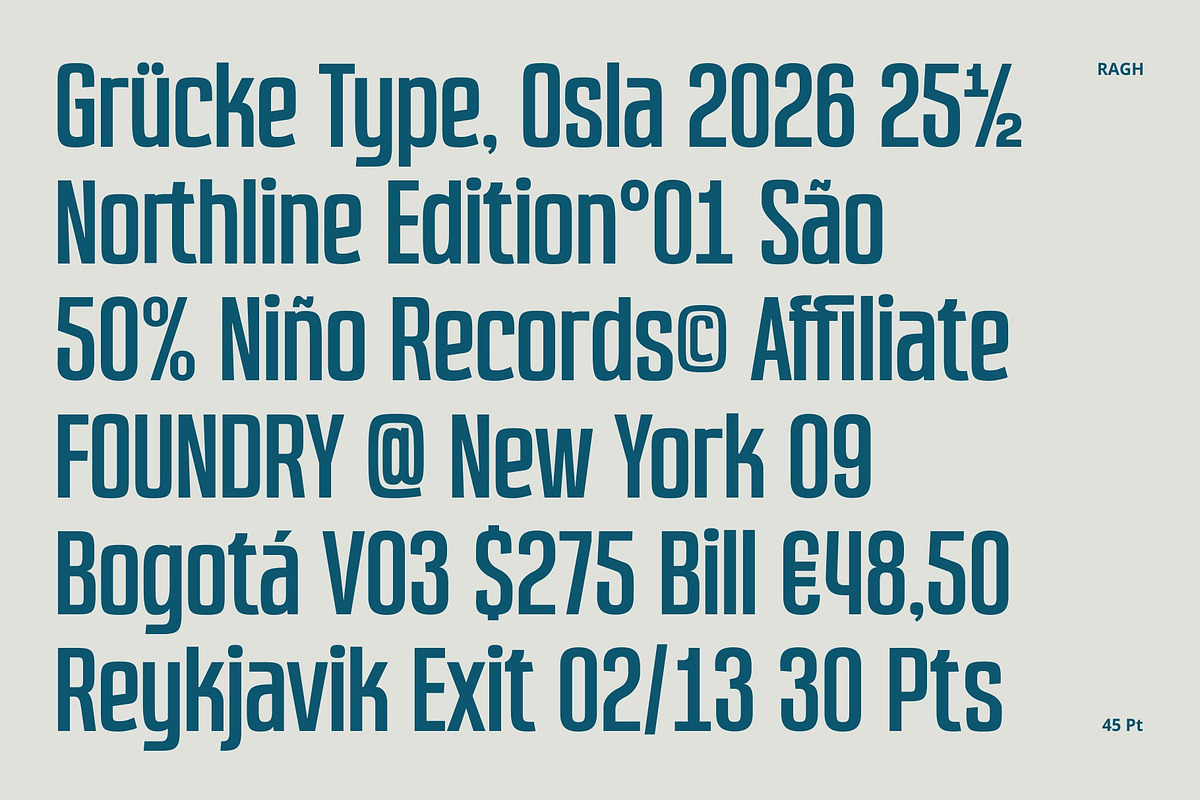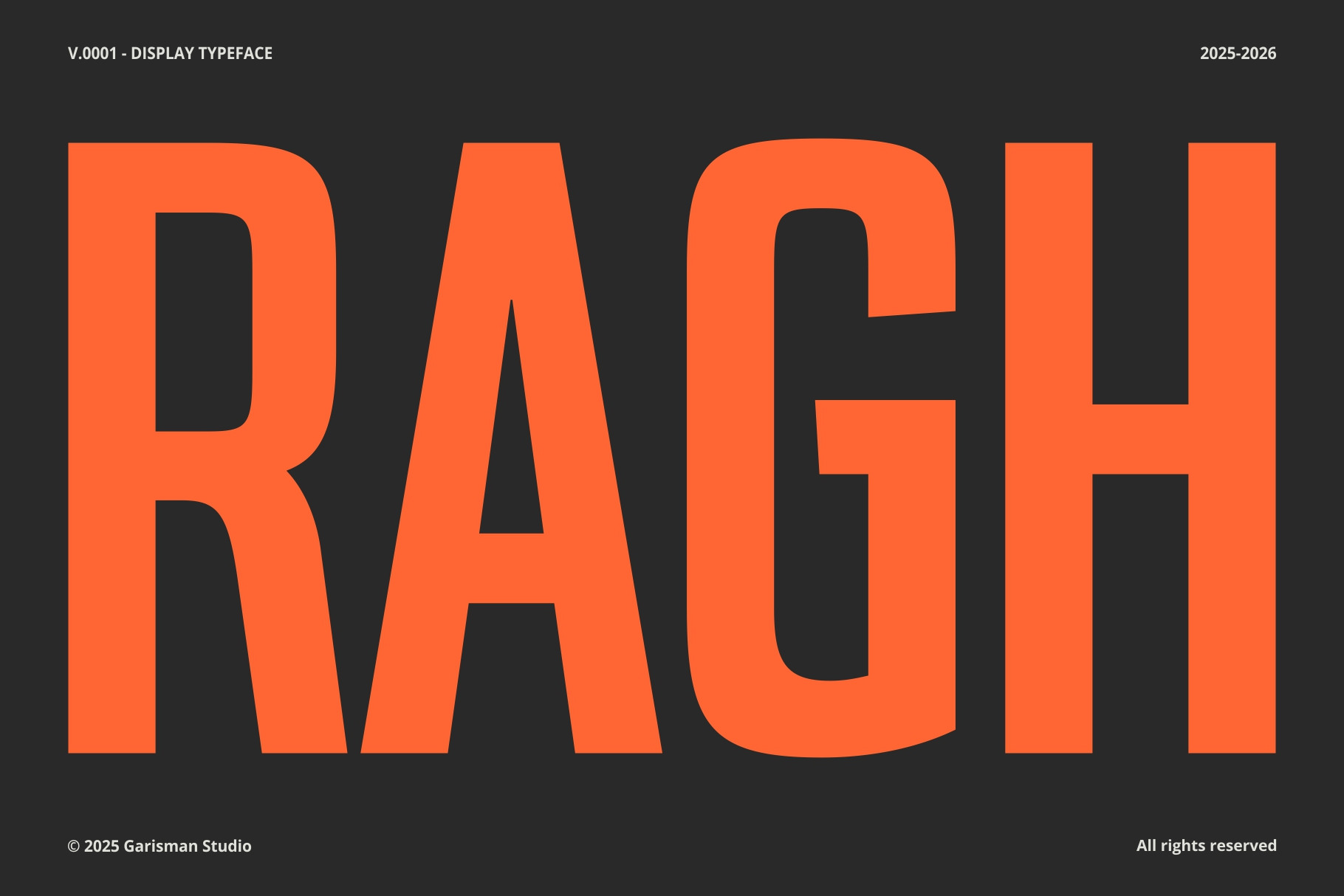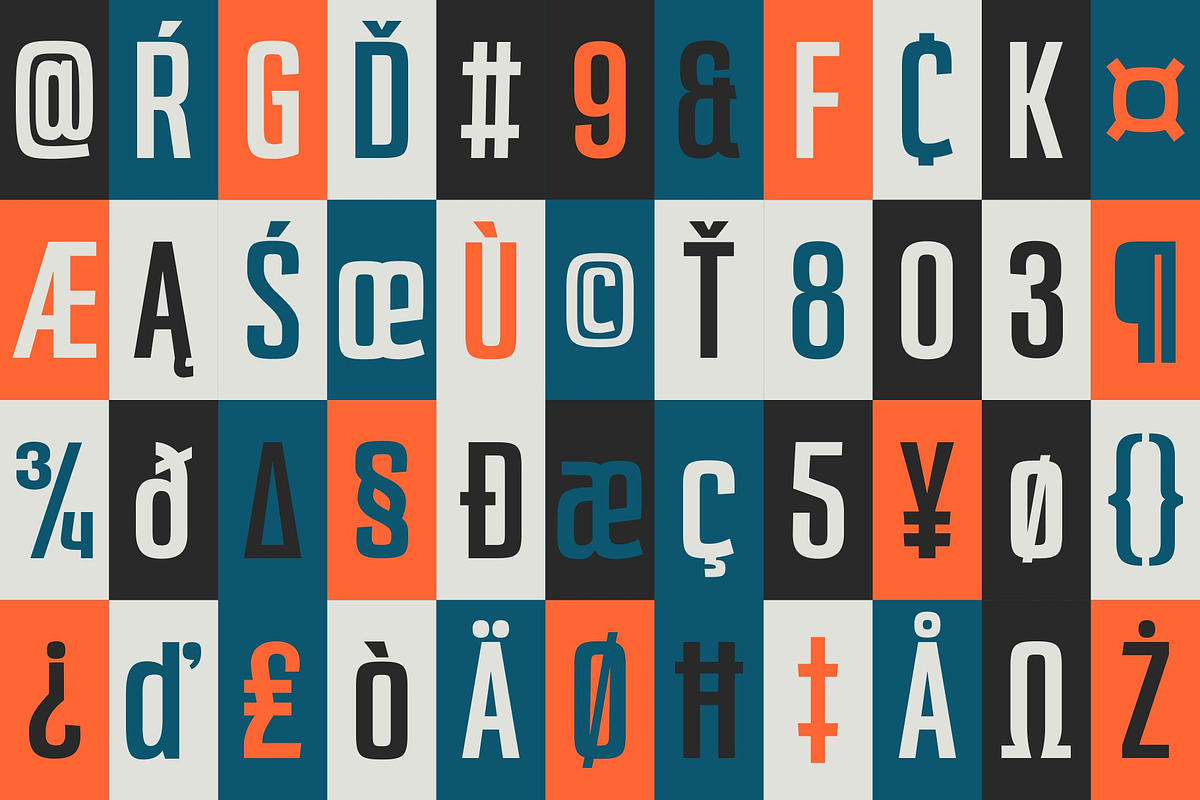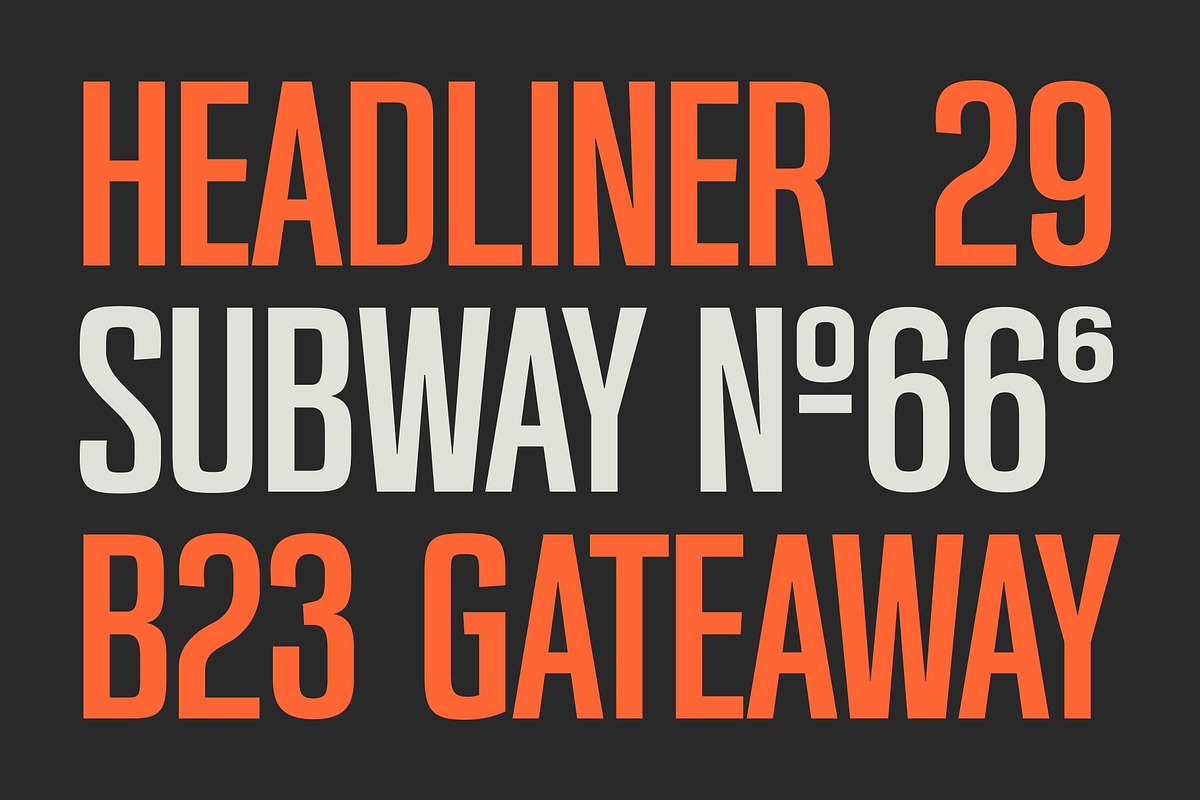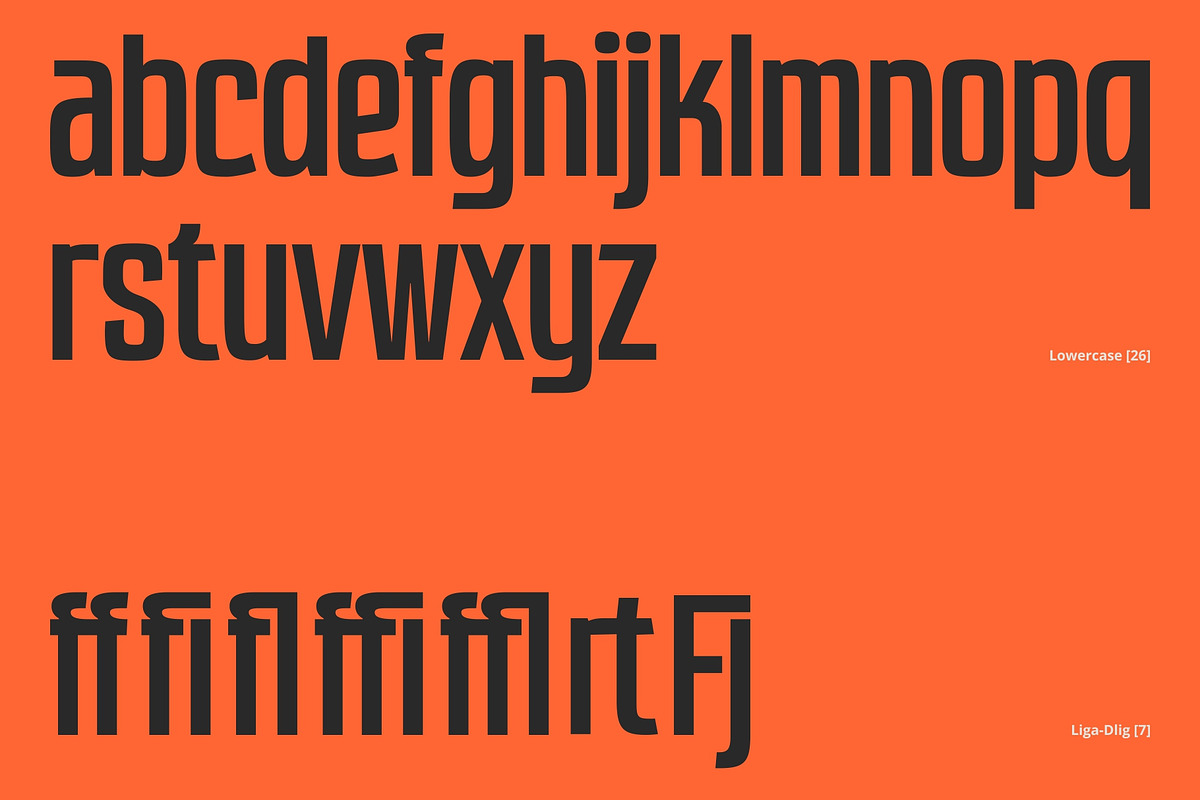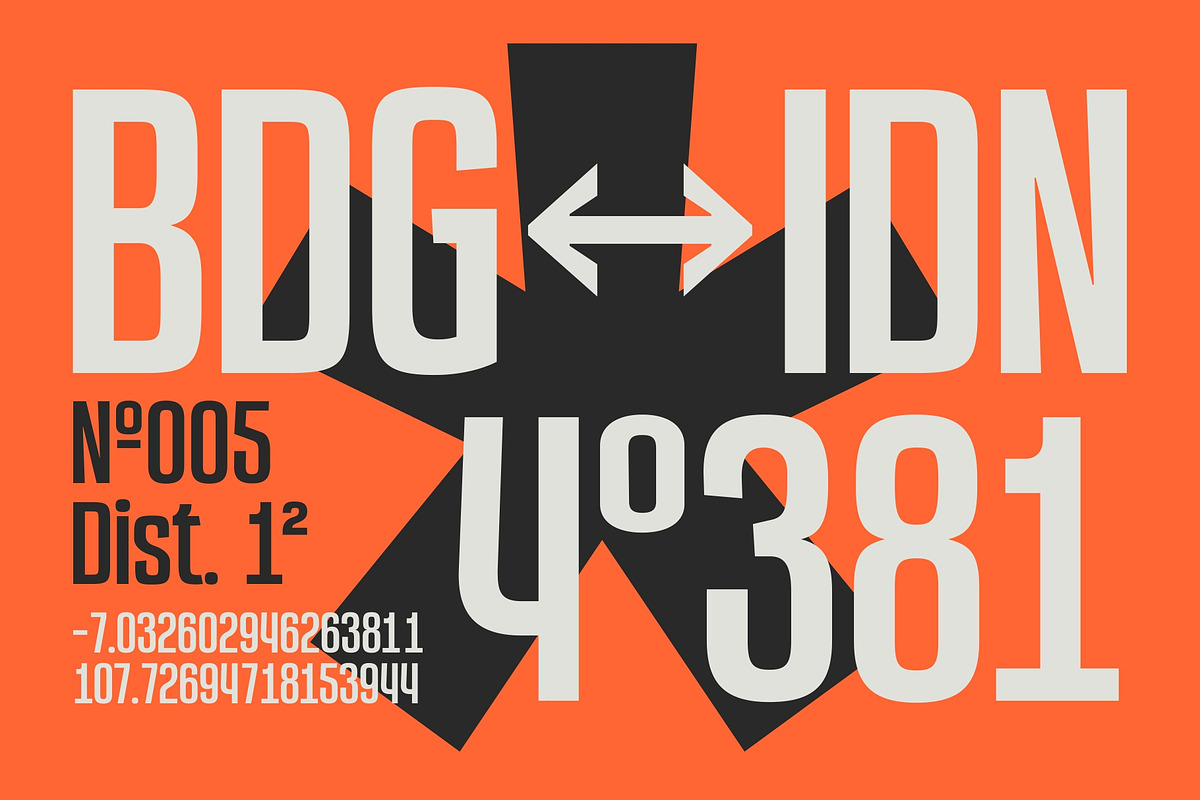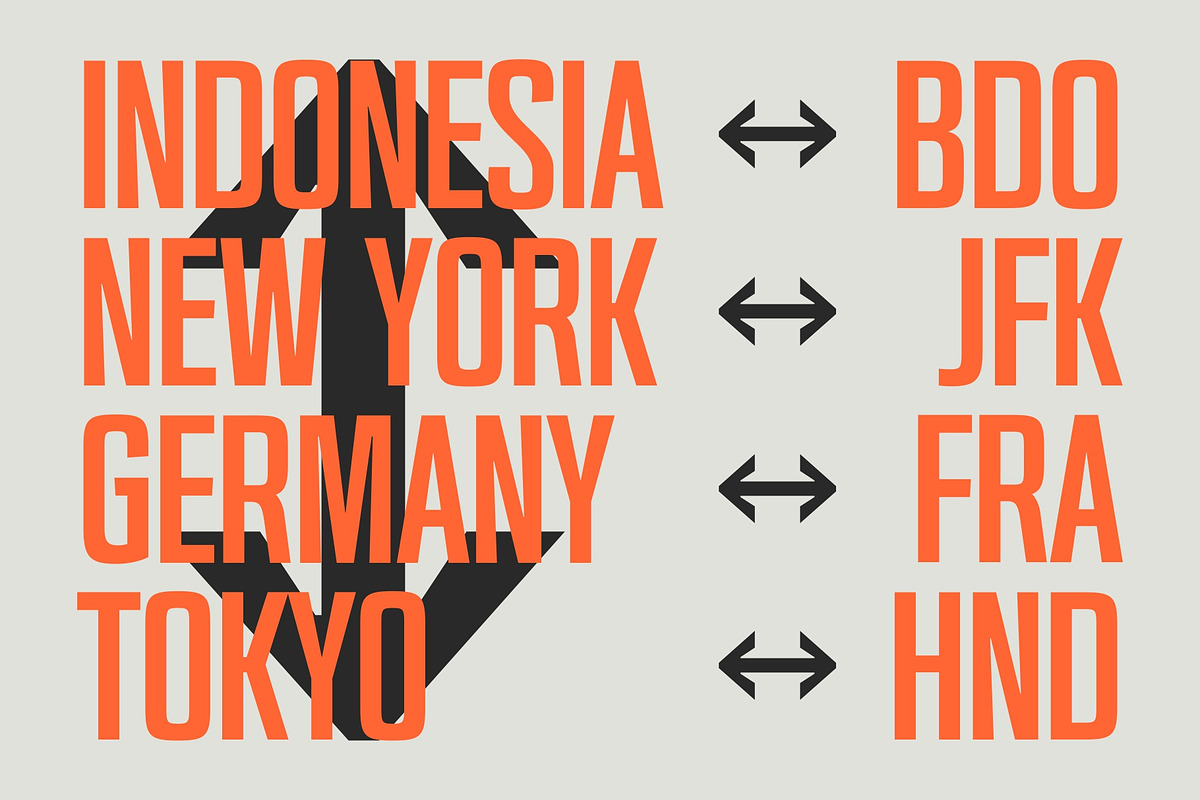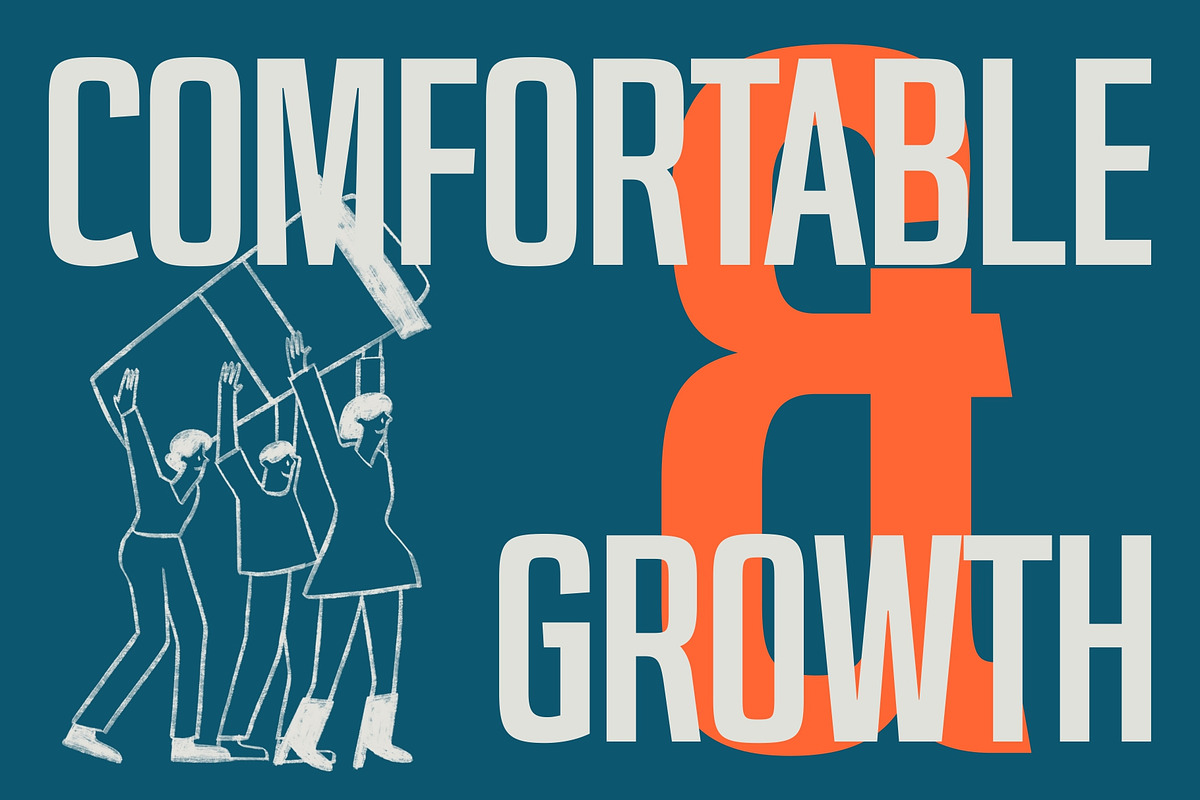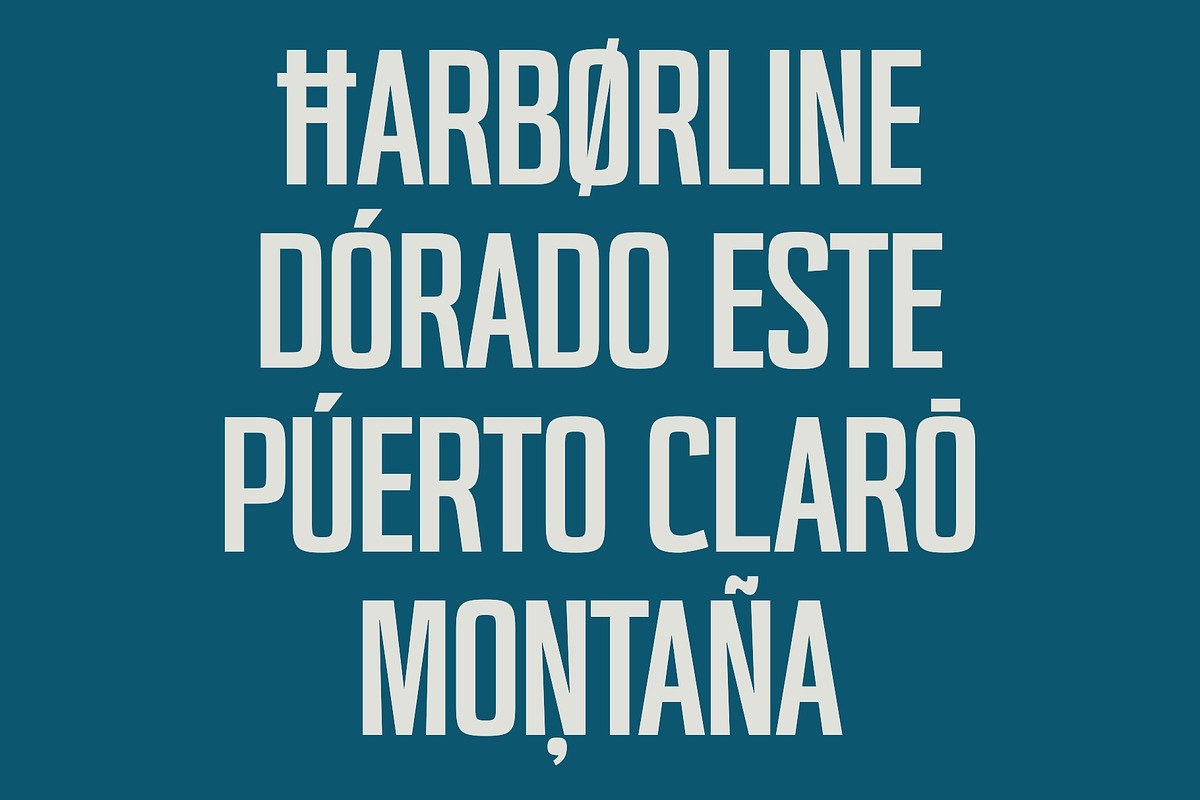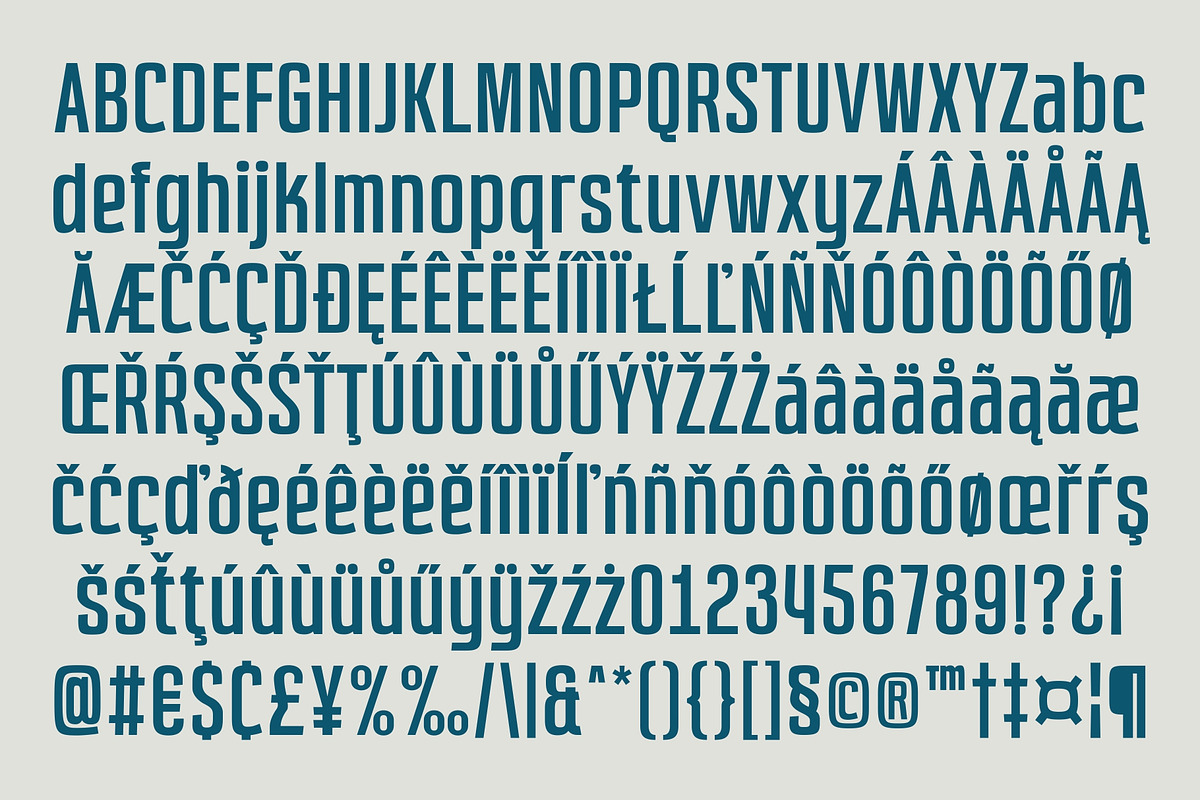
GR RAGH - Condensed Display Typeface
Say hello to GR Ragh a condensed sans serif display font made for strong, space-saving titles.
Its tall, narrow shapes give you bold headlines and logos without eating up your layout, making it perfect for:
- Branding and logo design
- Posters and promo graphics
- Editorial titles and pull-quotes
- Sign systems and information layouts
GR Ragh keeps the design clean and modern while still feeling approachable and easy to read. Under the hood, it comes with stylistic alternates, fractions, denominators, math symbols, and arrows, so you can handle prices, stats, directions, and UI details with consistent typography.
If you need a condensed sans serif display font for tight headlines, logos, and signage, GR Ragh is a practical, modern tool you’ll use again and again.
- Features: Stylistic Alternates, Fractions, Denominators, Math Symbols, Arrows